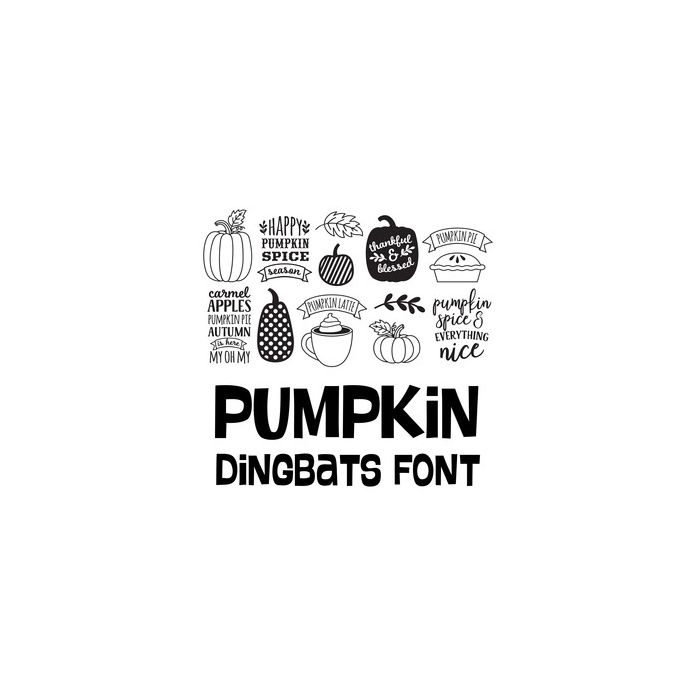
This cute dingbat font includes 26 pumpkin themed icons and phrases that you can type + cut. Make adorable pumpkin/autumn projects quickly and easily with this fun font. For ideas and inspiration visit www.loriwhitlock.com and www.facebook.com/lori.whitlock.studio. For Lori's video tutorials visit www.youtube.com/loriwhitlock. For a full tutorials list visit www.loriwhitlock.com/blog/tutorials.